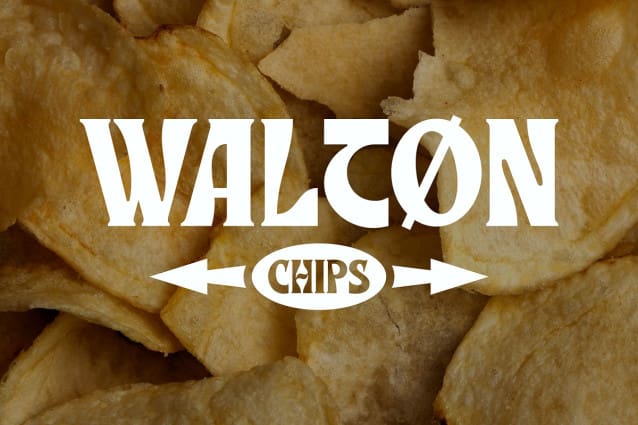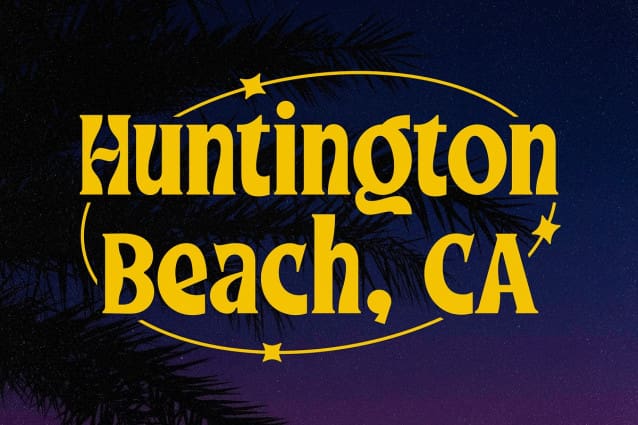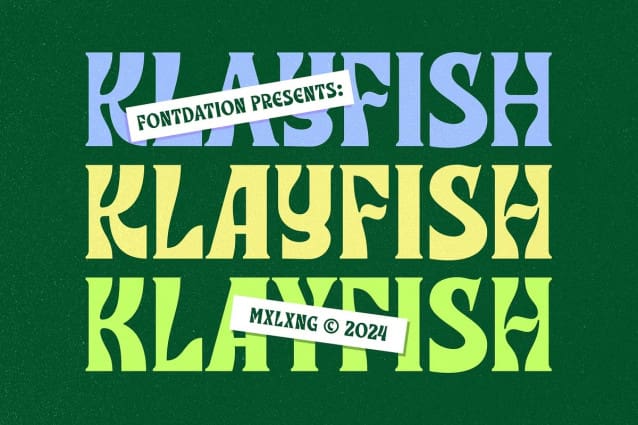
Klayfish Font
Klayfish Font, a new experimental typeface project from us to you. This serif is made with lot of twist, to elevate their looks from boring-classic-serif to a funky-trendy ones! Digitally mouse-crafted with high attention to the details, with smooth lines and curves of course. Suits best for logo/branding, headlines, apparel, poster, quote/text based designs, etc.